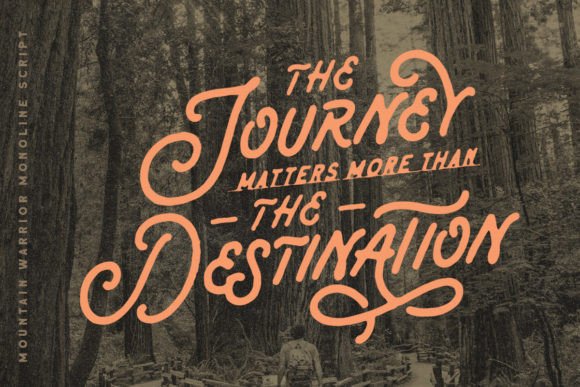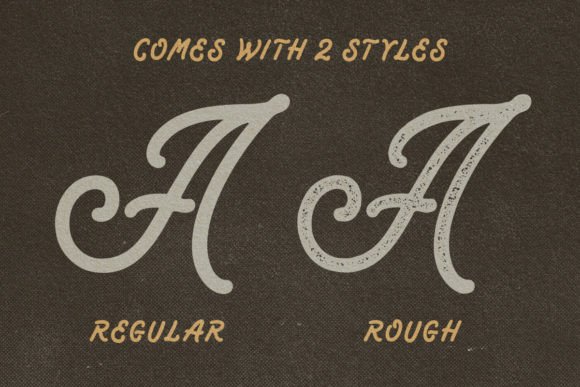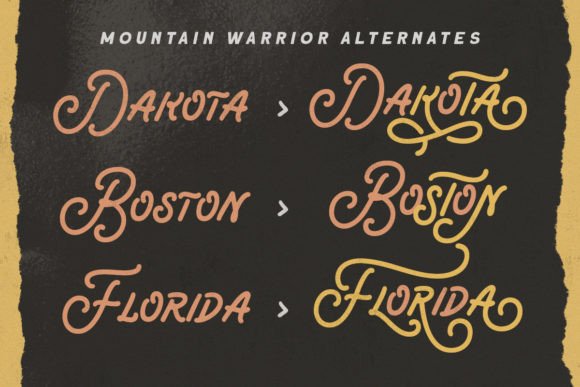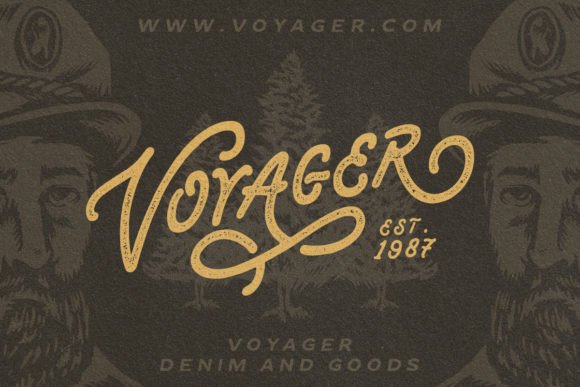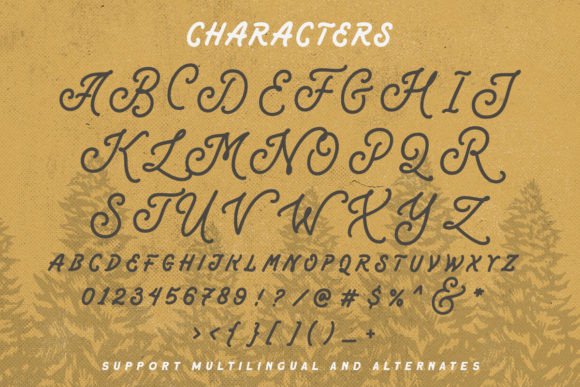
Introduction to Mountain Warrior Font
As a designer, you’ve probably found yourself in a moment of pure creative bliss – the blank page staring back at you, the possibilities endless, and the urge to bring a unique vision to life. For those of you who crave that special something to elevate your next project, we’re excited to introduce the Mountain Warrior Font, a luxurious and nostalgic monoline script that’s sure to leave a lasting impression.
With its retro look and feel, the Mountain Warrior Font is the perfect addition to any design project that demands high-quality, eye-catching typography. And the best part? It’s free to download, making it an invaluable resource for designers of all levels. Whether you’re working on a creative project that requires a touch of sophistication or simply need a design element that pops, the Mountain Warrior Font is sure to deliver.
Key Features of Mountain Warrior Font
- High-quality, bold, and modern design suitable for various creative projects, including graphic design, logos, and typography.
- Features a unique, rugged, and adventurous aesthetic, perfect for projects that require a bold and fearless look.
Honest Review: Mountain Warrior Font
I recently came across the Mountain Warrior Font while searching for design resources for a creative project, and I must say it’s an interesting addition to any design collection. The font itself has a rugged, adventurous feel to it, which makes it perfect for titles, headings, and other prominent text in outdoor-themed projects.
- What works well: ✨ The Mountain Warrior Font has a unique, bold style that grabs attention. It’s also quite versatile and can be used in a variety of design contexts, from posters to website headers.
Overall, I think the Mountain Warrior Font is a solid design resource that’s worth checking out. While it may not be perfect for every project, its unique style and high quality make it a great addition to any design collection.
The Mountain Warrior Font is perfect for a variety of creative projects, including:
Graphic design
Typography
Branding
Marketing materials